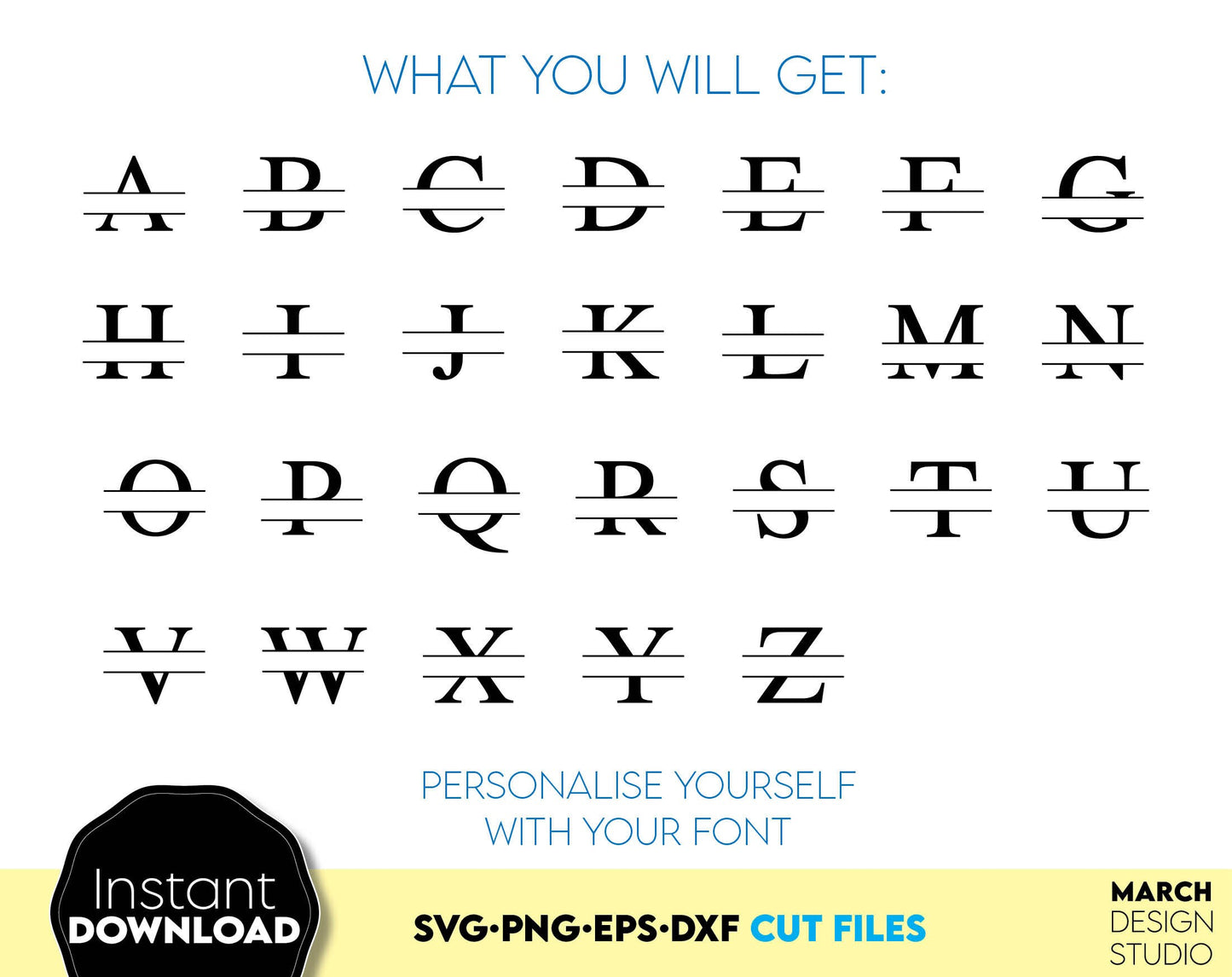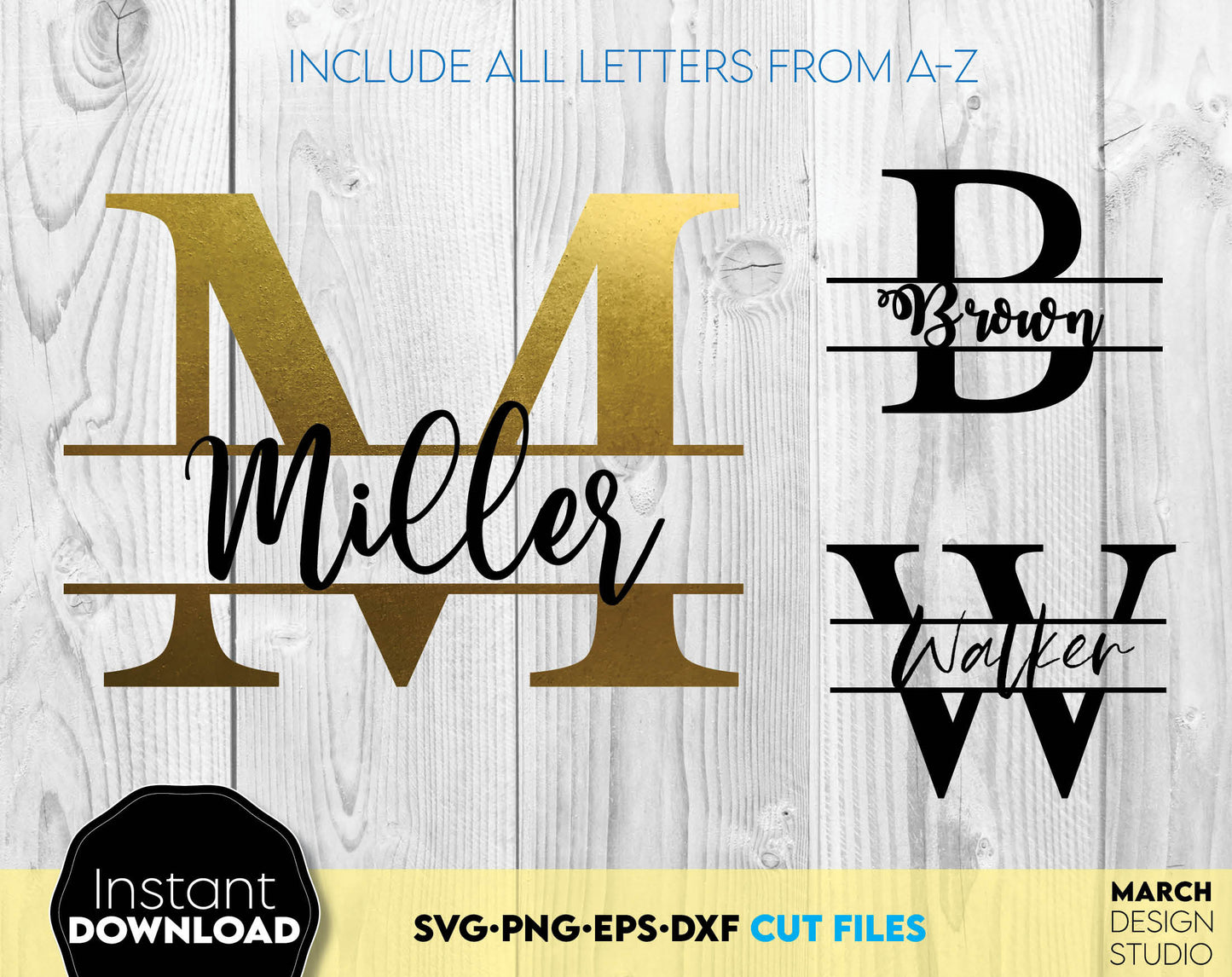
Split Monogram SVG | Monogram font SVG | Family Monogram SVG | Split Letters svg | Wedding Monogram svg | Last Name Sign svg Laser Cut File
Monogram fonts letters from A - Z bundle designs for Your gift projects or home decoration.